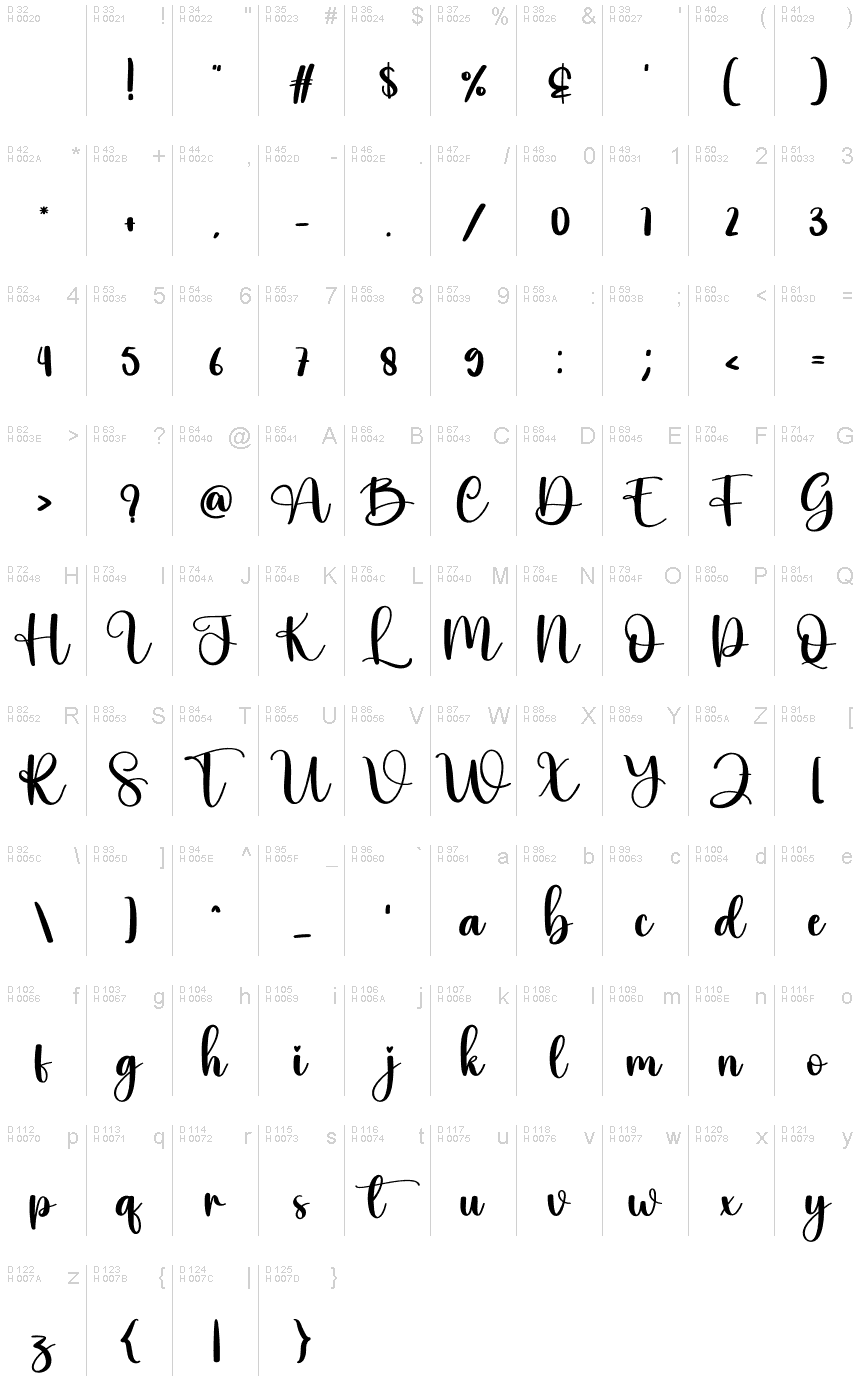
Agile
Agile, a stunning creation by Scratchones, is a charming calligraphy font that exudes elegance and grace. With its delicate strokes and flowing curves, this typeface adds a touch of sophistication to any design project.
The semi-bold weight of Agile is perfect for crafting eye-catching headlines and titles that demand attention. Its versatile nature makes it suitable for various projects, from wedding invitations and greeting cards to branding materials and social media graphics.
Let Agile transform your designs into works of art with its enchanting beauty and timeless appeal.
The semi-bold weight of Agile is perfect for crafting eye-catching headlines and titles that demand attention. Its versatile nature makes it suitable for various projects, from wedding invitations and greeting cards to branding materials and social media graphics.
Let Agile transform your designs into works of art with its enchanting beauty and timeless appeal.